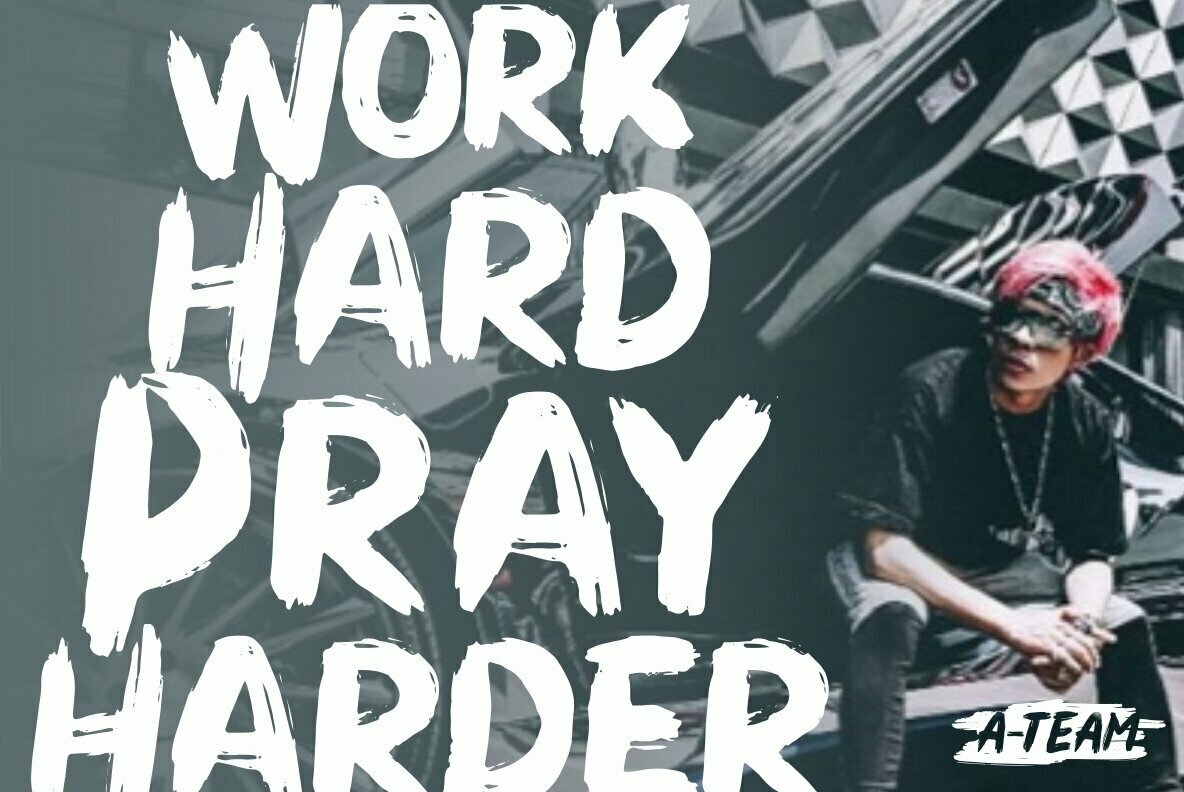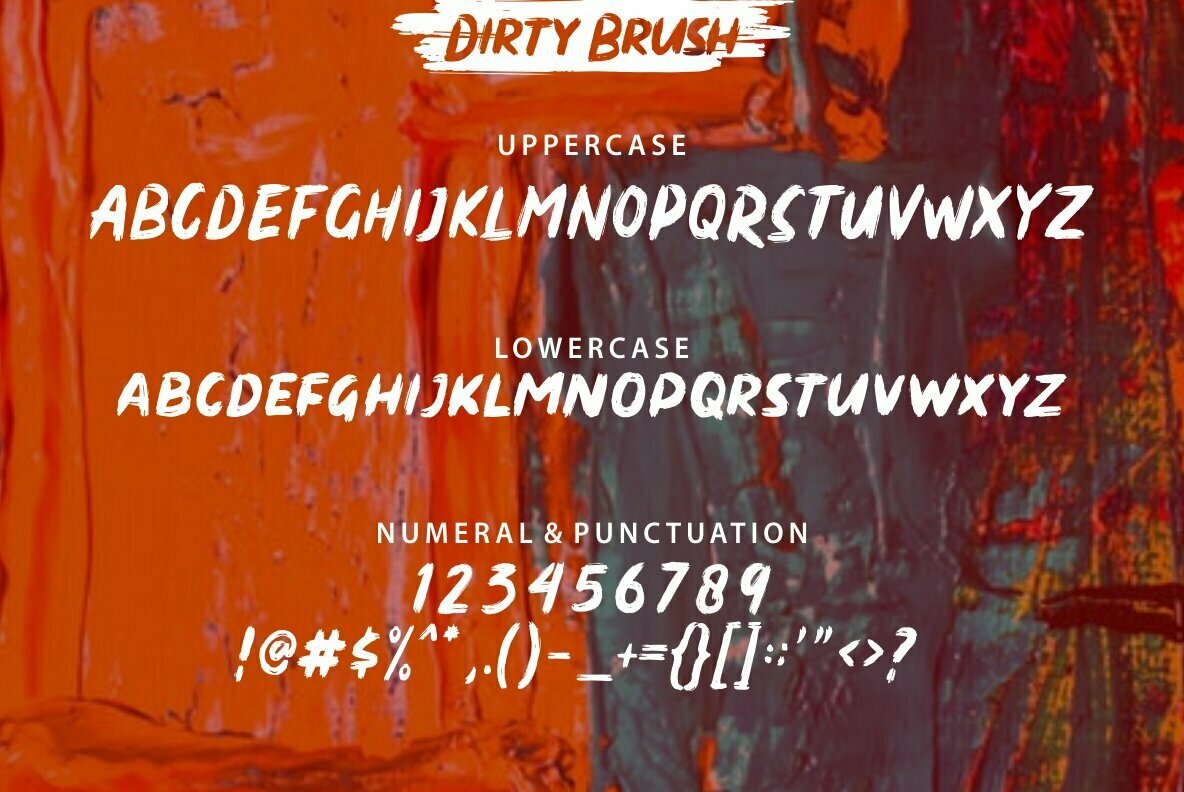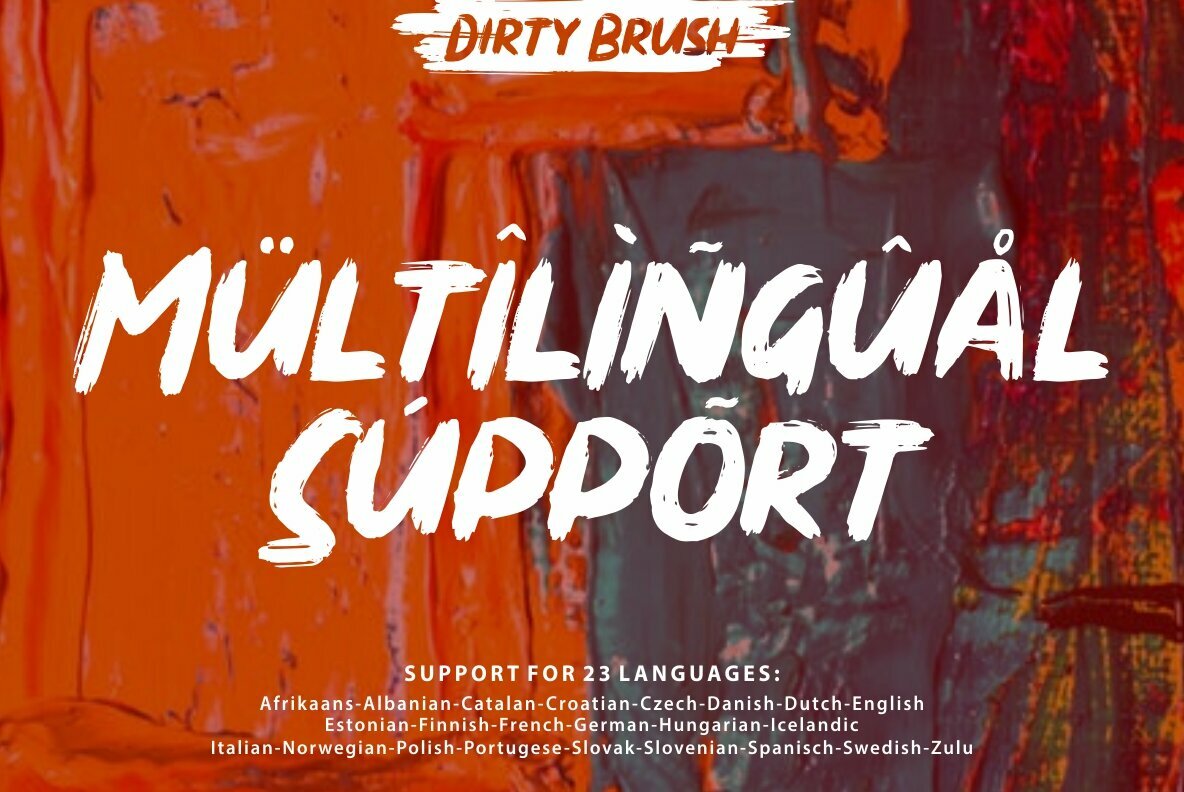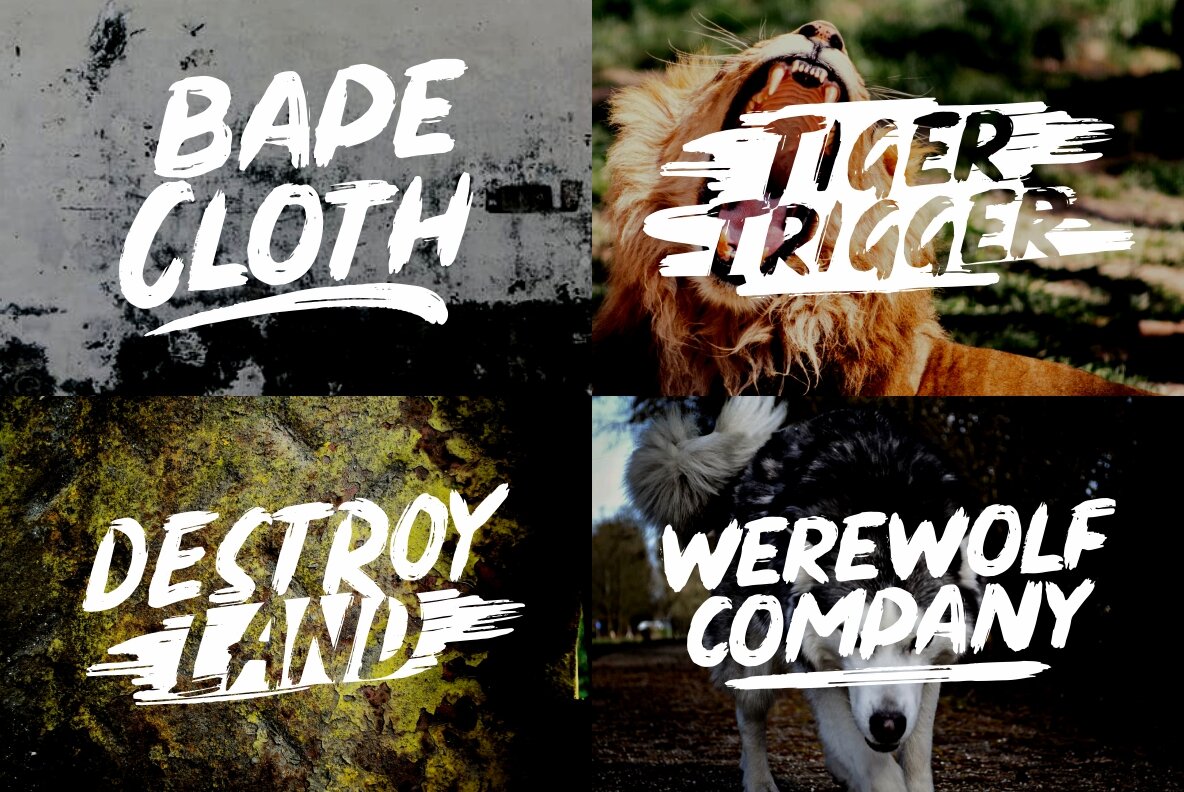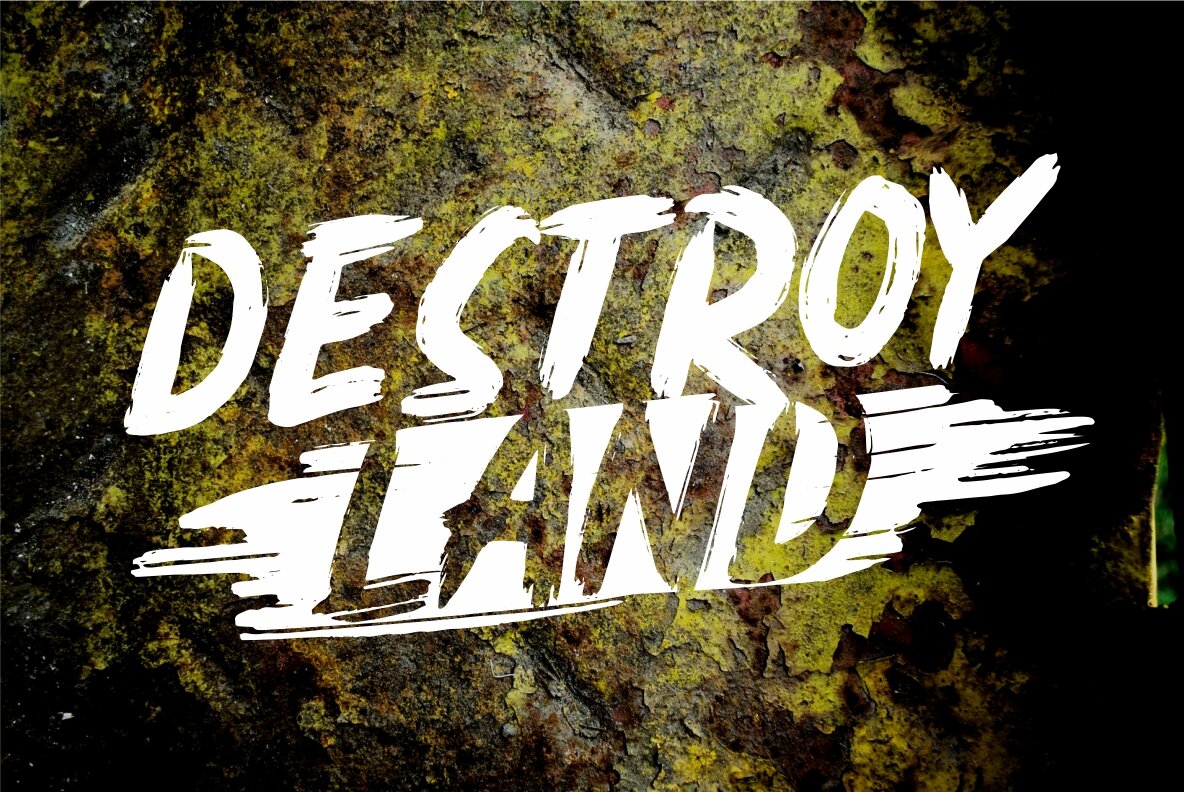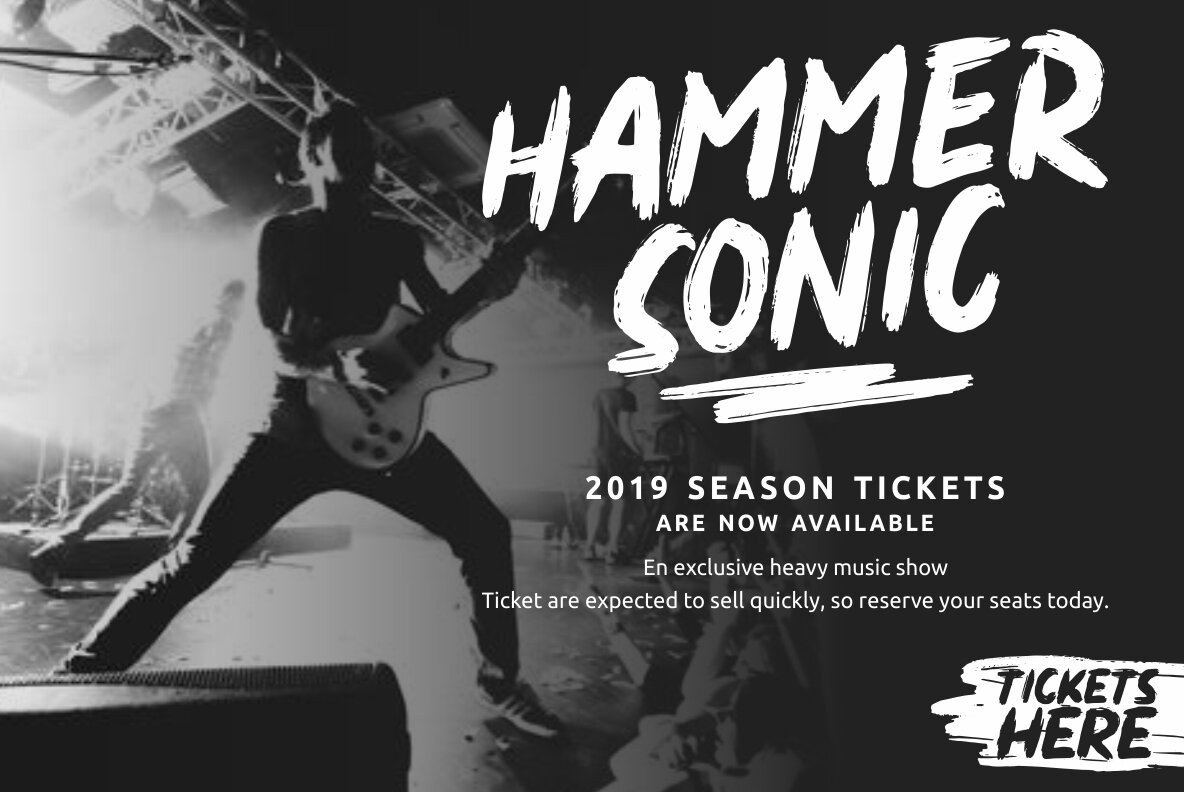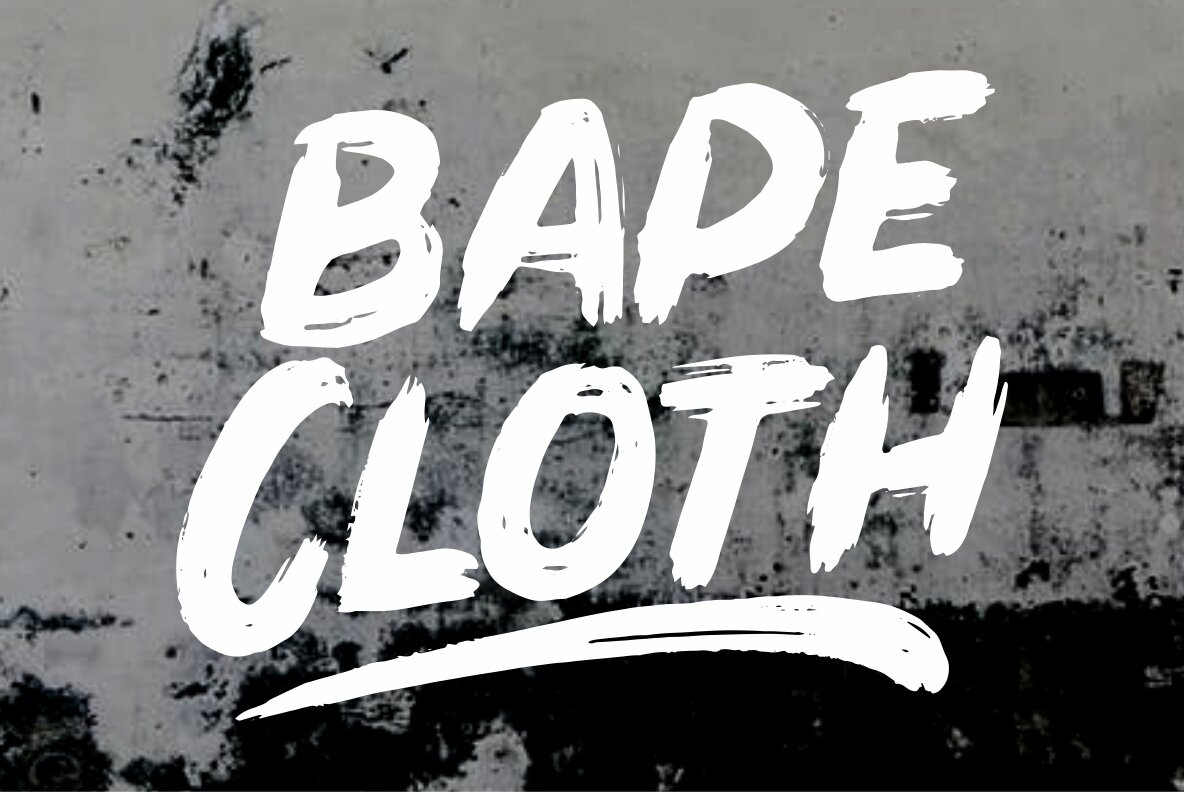
Dirty Brush Font
Dirty Brush marries attractive curves with a fresh urban aesthetic, creating a script that effortlessly elevates your design projects. Whether it's logo design, brand imagery, or social media posts, this font adds instant visual appeal.Dirty Brush: Stylish Script with Urban Flair